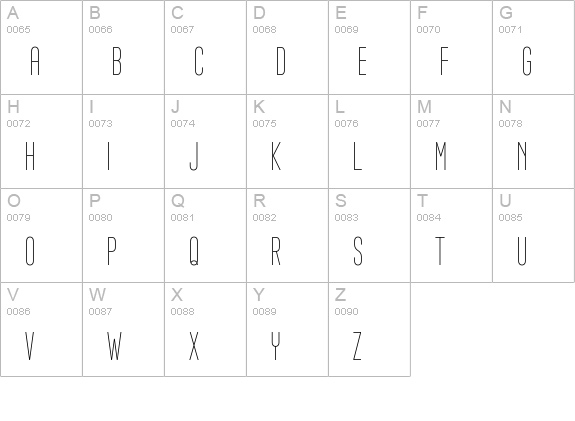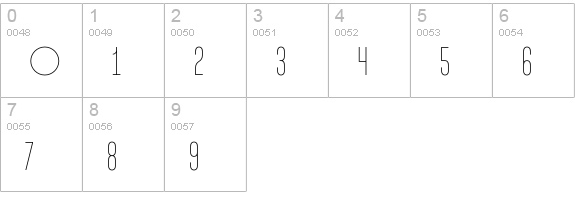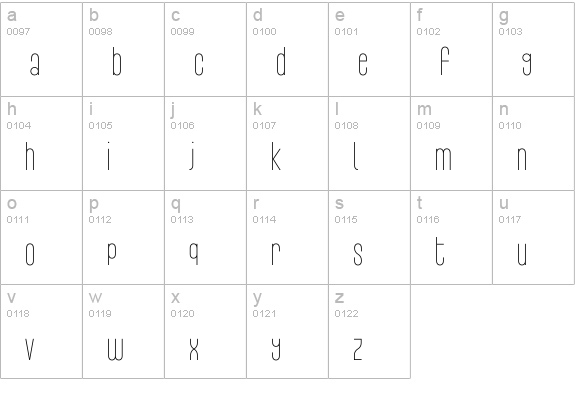
AdultometricProLight Font Details
Introducing AdultometricProLight font, a sleek and modern typeface that exudes sophistication and elegance. With its clean lines and sharp edges, this font is perfect for a wide range of design projects, from branding to editorial design. The light weight of the font gives it a delicate and airy feel, making it ideal for adding a touch of refinement to your creations. What's more, AdultometricProLight font is available for free download at FontsMarket.com. Take advantage of this opportunity to enhance your projects with a high-quality and stylish font that will elevate your designs to the next level. Whether you're working on a website, a print publication, or any other design project, AdultometricProLight font is sure to make a lasting impression. Download it now and see the difference it can make in your work.